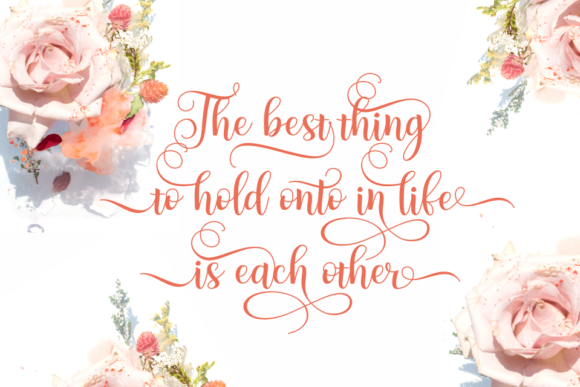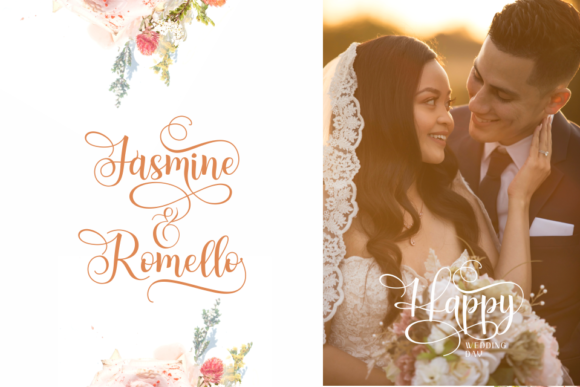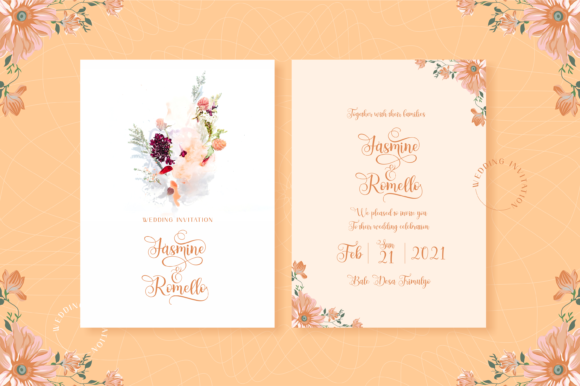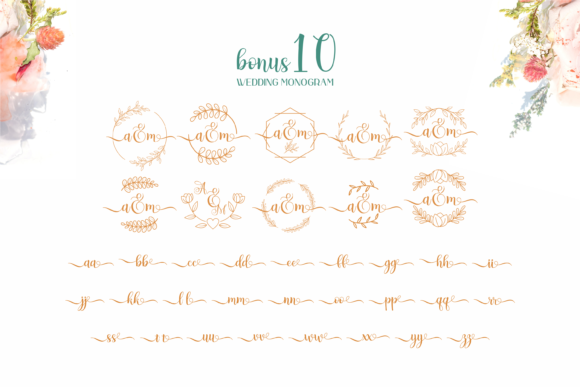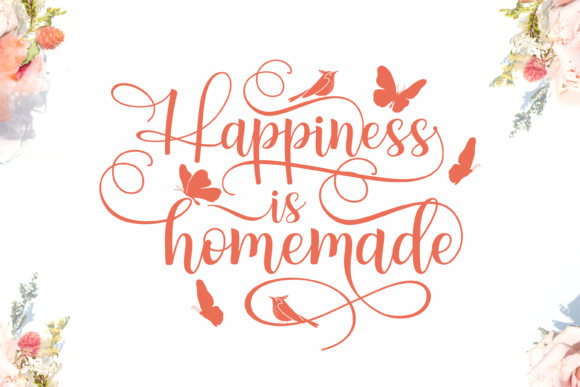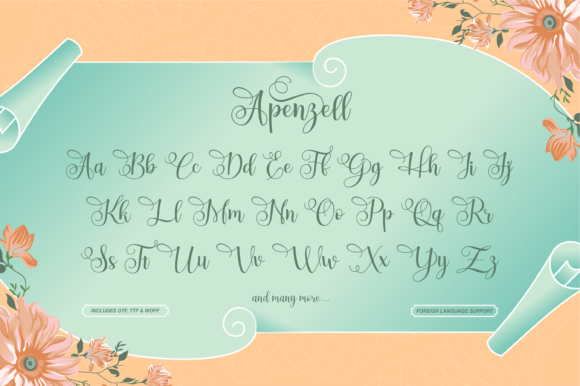
Apenzell Font: A Timeless and Elegant Choice for Designers and Crafters
Are you looking for a font that exudes elegance and sophistication? Look no further than the Apenzell font. This beautiful handwritten font is perfect for adding a touch of whimsy and romance to any design project. In this article, we’ll take a closer look at the Apenzell font, its features, and how it can be used to elevate your designs.
What is Apenzell Font?
Apenzell is a modern calligraphy font that features beautiful, flowing script letters. The font is designed to look like it was written with a pen, giving it a personal and intimate feel. Apenzell is perfect for designers and crafters who want to add a touch of elegance and sophistication to their work.
Features of Apenzell Font
Apenzell font has several features that make it a popular choice among designers and crafters. Some of its key features include:
- Beautiful Handwritten Letters: Apenzell font features beautiful, flowing script letters that look like they were written with a pen.
- Elegant and Sophisticated: The font has an elegant and sophisticated feel, making it perfect for designs that require a touch of luxury.
- Versatile: Apenzell font can be used for a variety of design projects, including wedding invitations, thank you cards, quotes, greeting cards, logos, and business cards.
- Easy to Read: Despite its elegant feel, Apenzell font is easy to read, making it perfect for designs that require a clear and legible font.
Uses of Apenzell Font
Apenzell font is a versatile font that can be used for a variety of design projects. Some of the most popular uses of Apenzell font include:
- Wedding Invitations: Apenzell font is a popular choice for wedding invitations, as it adds a touch of elegance and sophistication to the design.
- Thank You Cards: The font is also perfect for thank you cards, as it allows you to express your gratitude in a beautiful and elegant way.
- Quotes: Apenzell font is a great choice for quotes, as it adds a touch of whimsy and romance to the text.
- Greeting Cards: The font can be used for a variety of greeting cards, including birthday cards, anniversary cards, and holiday cards.
- Logos: Apenzell font can be used to create beautiful and elegant logos for businesses and brands.
- Business Cards: The font is also perfect for business cards, as it adds a touch of sophistication and elegance to the design.
Why Choose Apenzell Font?
There are many reasons why designers and crafters choose Apenzell font for their projects. Some of the top reasons include:
- Unique and Elegant: Apenzell font is a unique and elegant font that adds a touch of sophistication to any design.
- High-Quality: The font is of high quality, making it perfect for professional designs.
Tips for Using Apenzell Font
Here are a few tips for using Apenzell font in your designs:
- Use it Sparingly: Apenzell font is a beautiful font, but it can be overwhelming if used too much. Use it sparingly to add a touch of elegance to your design.
- Pair it with Other Fonts: Apenzell font pairs well with other fonts, such as sans serif fonts. Experiment with different font combinations to find the perfect look for your design.
- Adjust the Size: Apenzell font can be used at a variety of sizes, from small to large. Experiment with different sizes to find the perfect look for your design.
Apenzell font is a beautiful and elegant font that is perfect for designers and crafters who want to add a touch of sophistication to their work. With its flowing script letters and elegant feel, Apenzell font is perfect for a variety of design projects, including wedding invitations, thank you cards, quotes, greeting cards, logos, and business cards. Whether you’re a professional designer or a crafter, Apenzell font is a great choice for any project that requires a touch of elegance and sophistication.